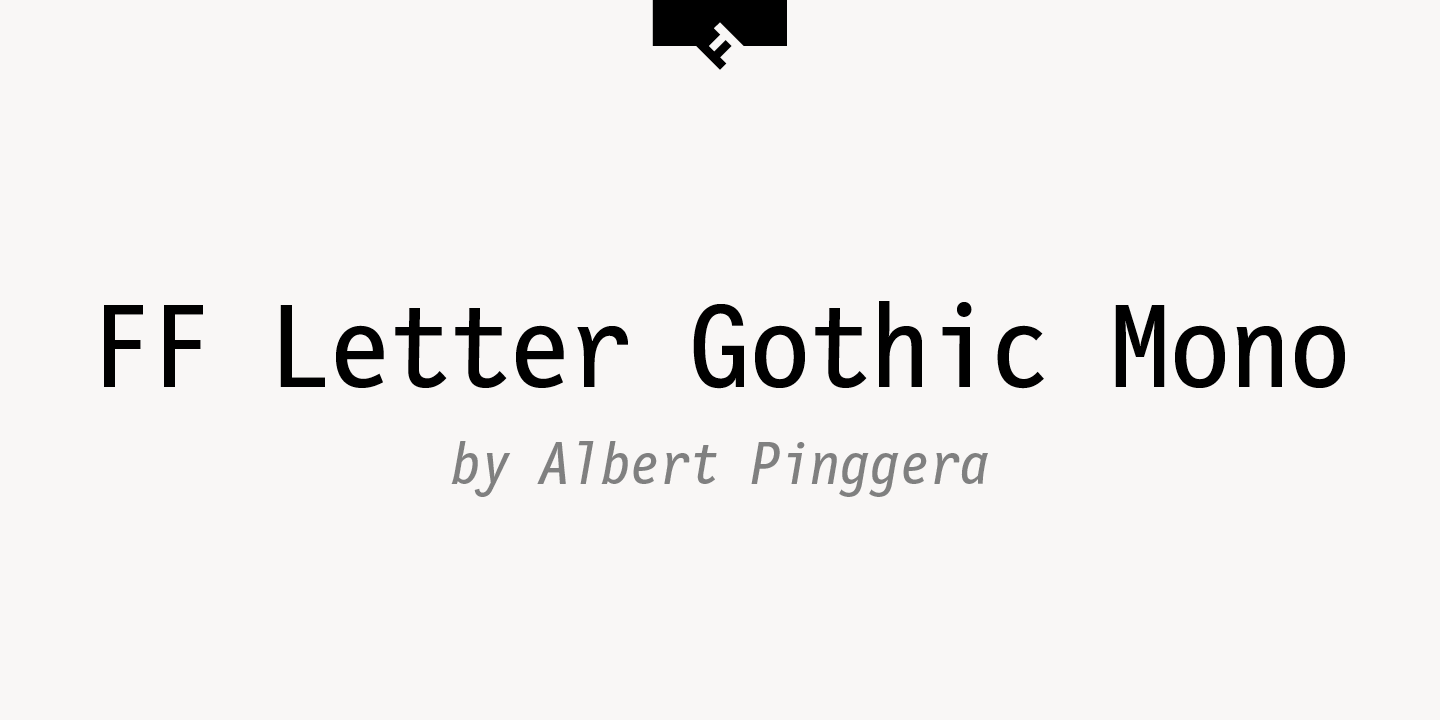
FF Letter Gothic Mono Font is perfect for technical documentation, programming code displays, typewriter-style designs, vintage computing aesthetics, industrial specifications, and retro technology branding. Its systematic character makes it ideal for software development companies, technical writing services, vintage electronics brands, computer museums, and any application requiring monospaced typography that conveys technical precision, systematic order, and nostalgic computing authenticity.
FF Letter Gothic Mono Font is exciting because it perfectly preserves the mechanical precision of classic typewriter typography through uniformly spaced letterforms that evoke the systematic beauty of early computing and professional typing. Its consistent character spacing and industrial proportions reflect the reliable functionality of mechanical typewriters and early computer terminals, making it perfect for organizations seeking to convey technical expertise and systematic reliability. The font's monospace character ensures perfect alignment and code readability.
FF Letter Gothic Mono Font family includes systematically designed weight variations typically featuring Regular, Medium, and Bold options with consistent monospace spacing throughout. The family often incorporates technical symbols, programming characters, and extended ASCII sets designed for coding applications, providing designers with comprehensive tools for creating authentic, technically-focused monospaced typographic solutions.
When selecting monospace typography solutions, FF Letter Gothic Mono Font Free Download represents an exceptional choice for technical and programming projects. This precise typeface brings instant technical credibility to any application, making it invaluable for software developers, technical writers, and technology companies requiring systematic typography. Whether you're developing code documentation, creating technical manuals, or designing retro computing interfaces, FF Letter Gothic Mono Font provides the monospace precision and technical authenticity essential for clear communication in today's technology-driven development environment.